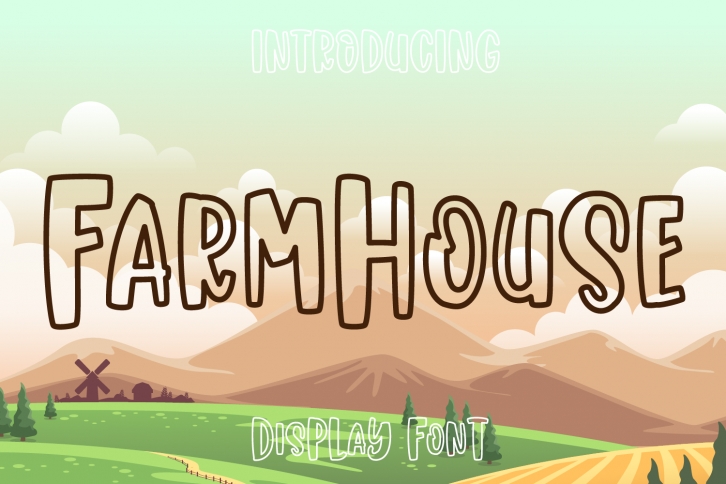
Farmhouse is a modern outlined display font that is readable and stylish. It is perfect for fashion branding or editorial designs. Add it confidently to your projects, and you will love the results.